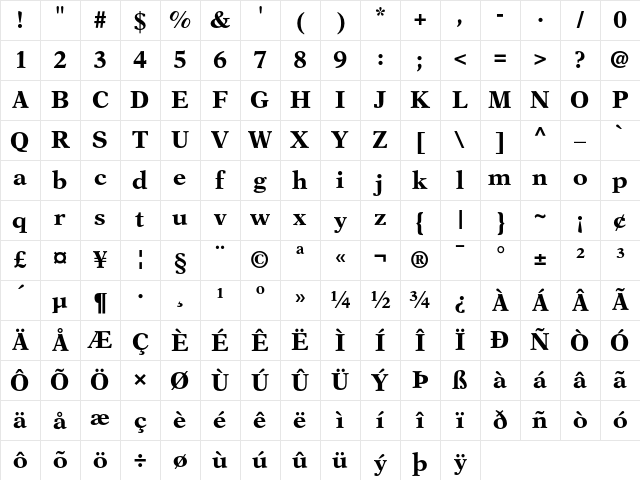
NewAster Regular
Complete NewAster Regular glyph index. Displaying only characters natively supported by NewAster Regular font.
Design Context for NewAster
NewAster is a composed and adaptable typeface that performs quietly and consistently across a wide range of design contexts.